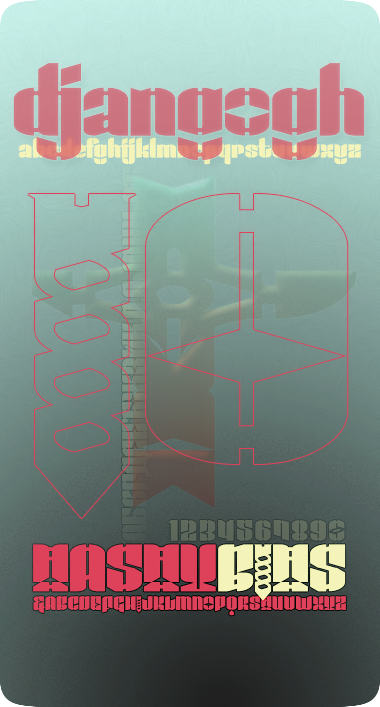
I like it ... a lot.
Love that Q.
Innovative and funky. Like.
I feared the U&lc would come out hopelessly disparate – stylistically and proportionally – but managed to match up just enough quirky details to create a happily funked-up union. The XXL x-height and jaunty ascenders I just had to learn to love.
And how ’bout that cyclopic Van Gogh dagger(fish)? Too soon? ; )
pretty excellent and mighty funky :) excellent execution of concept from A to...um the end :)
...and I thought something like this had surely been done here before. If so, I sure couldn't find it now.
shasta for the tagger sensibility that qualified my drippy Q and fat-nibbed flair.
afrojet and funk_king for their Josef Albers and Wim Crouwel riffs and revivals.
typerider for inspiring me again to do more with a small grid. (peghole wide is and always will be totally awesome.)
saberrider for flirting with a similar ratio of squished brick, though via a different approach.
thalamic for being thalamic ^.^.
To be honest, most mentioned above could have polished off something just like – or better than – djangogh. But for me the lure of fontstruct remains peeking beneath the unstacked brick, eking out new geometry from the many limitations and arcane mysteries of the system ; )
Really F**kin cool.
Madness at its best.
Upper T needs work though. Its just too hard to read.
Fantastic futuristic atmosphere, extended character set and great submarine sample.
Some alternatives that may spark you into creating a different T.
This crushes. That screw works on so many levels. I see some Russian constructivist influences as well. But really, this is just completely original.
Very innovative!
Just excellent!
Great style, amazing screw, awesome sample, and best of all: 383 characters... Chapeau! You might just have gotten one of my rare 10s. The only thing I don't really like are the quotation marks... How about a round version? I think it would fit better to the rest of the font.
(I btw don't even know how I'd have deserved any credit for such a masterpiece... I definitely couldn't have polished off something like this or I guess I would have done it a long time ago. ;) But your drippy Q does look very cool!)
Dude, fast work... I like it much better now! :)
If anybody wants a definitive example of a font that's both quirky and stylish, this beauty surely qualifies. 10!
Upon looking through your characters again I agree with djnippa that you should really think about implementing an alternative T, the current solution really is pretty unreadable. I like nippa's suggestions, especially the first and the last one...
Amazing work! I very much like the super-serifs of E,F,S,3,&. Very consistent, fresh and brave new design, with impressive character set. Отличная работа! 10/10
By the way, sorry for freaking out. This font is just so great.
Just looked at v.2. Heck of a lot better than this one. Every single font you make is worthy of a TP and FD. And several have gotten them!